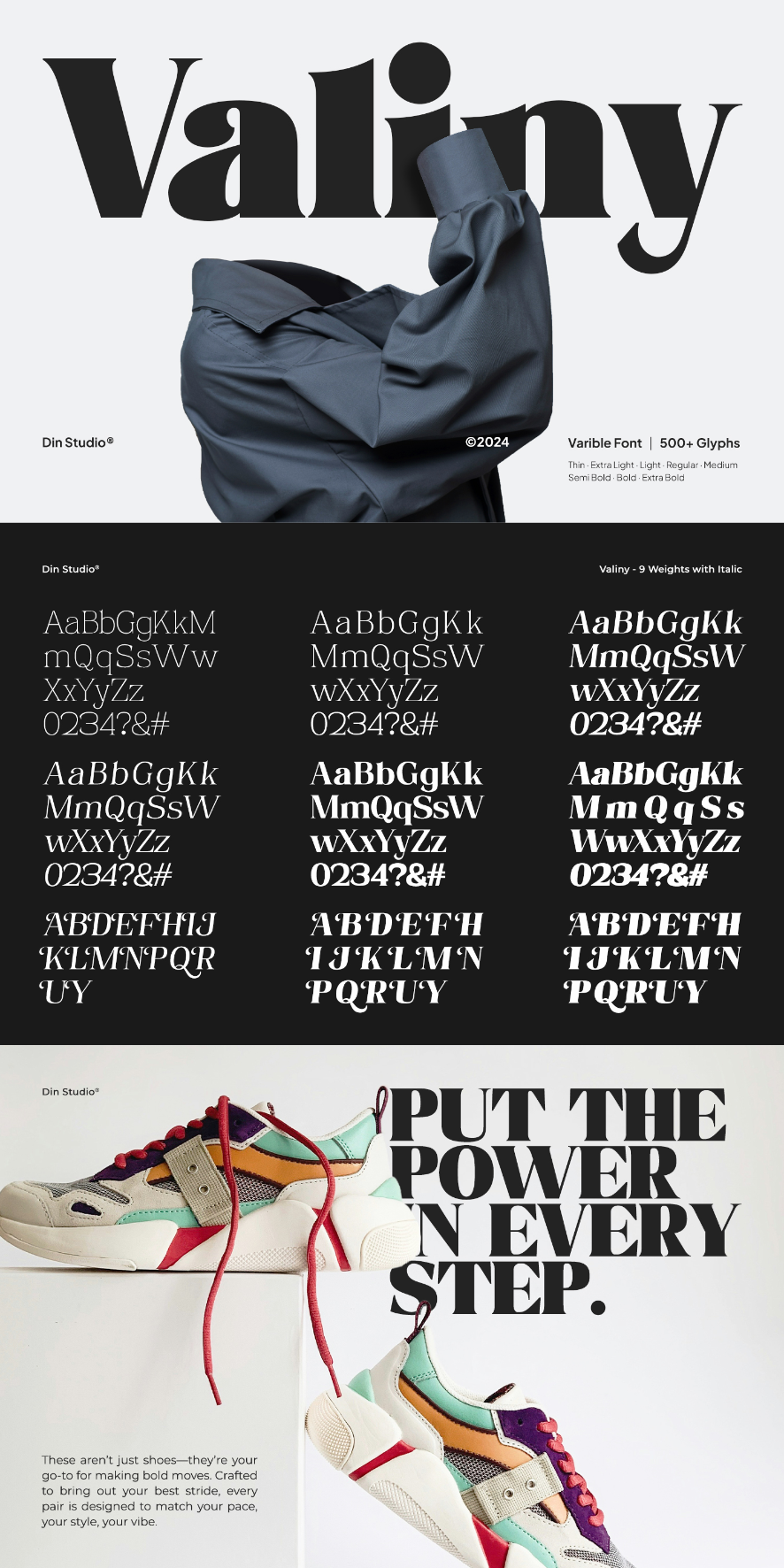
Valiny Font
About Valiny
Introducing Valiny, a sophisticated serif font family designed to elevate your creative projects. With 9 distinct weights and an elegant Italic version, Valiny combines timeless elegance, modern flair, and unwavering strength. Its harmonious proportions and refined details make it more versatile. Valiny’s versatility ensures that every letterform speaks with confidence and sophistication, giving your designs a polished, professional edge.
Valiny’s different weight fonts :
- Thin
- Extra Light
- Light
- Regular
- Medium
- Semi Bold
- Bold
- Extra Bold
- Black
Valiny fits in headlines, logos, posters, invitation, branding materials, packaging, print media, editorial layouts, and many more designs. Find out more ways to use this font by taking a look at the font preview.